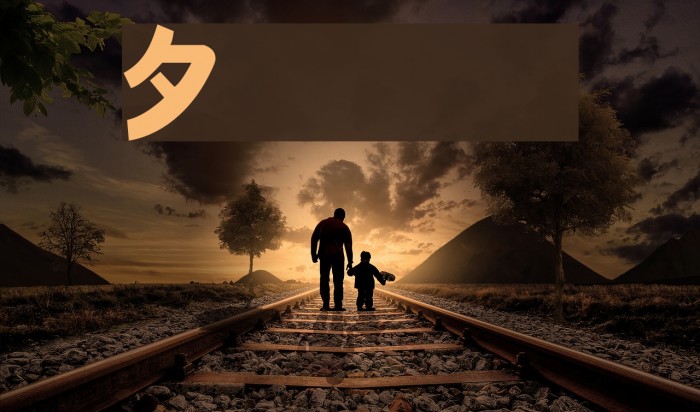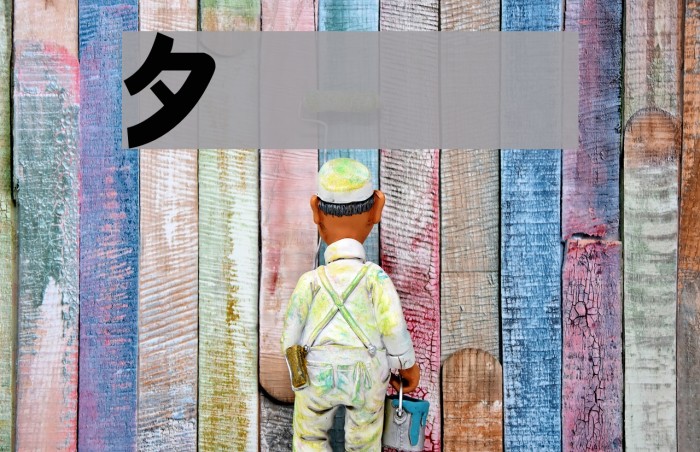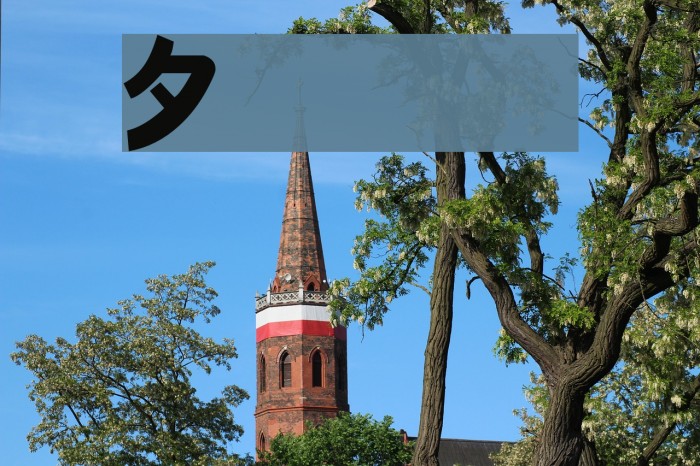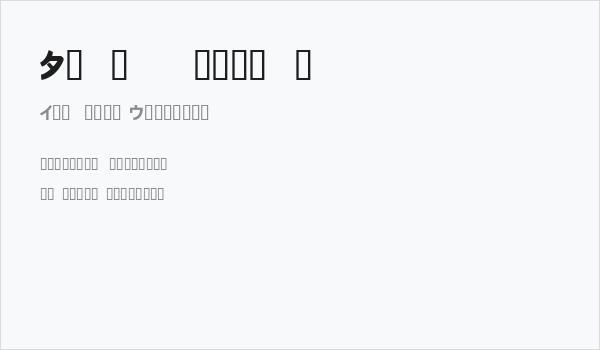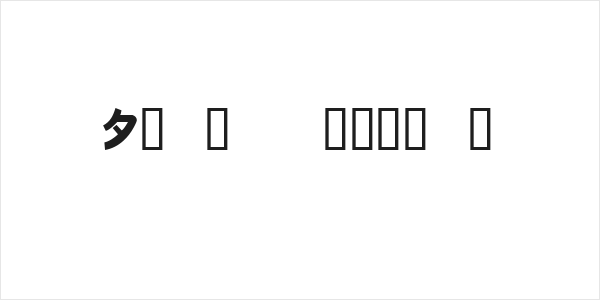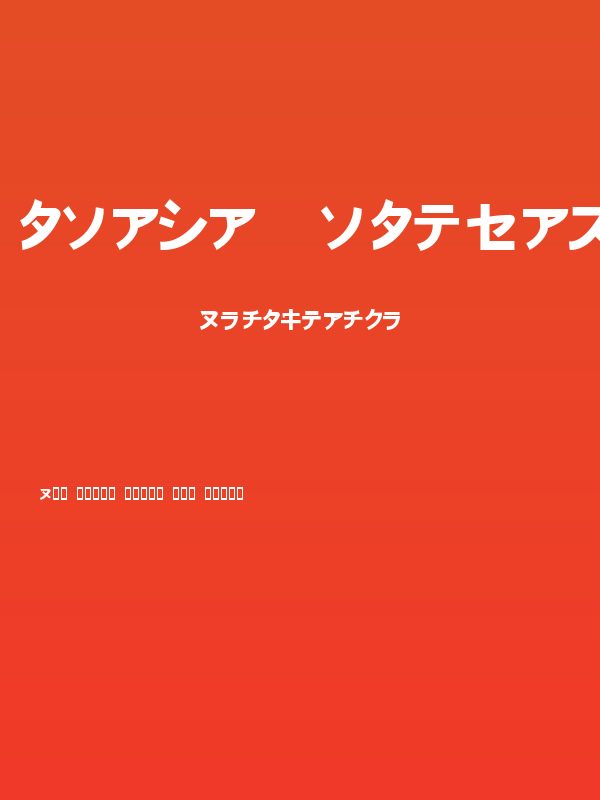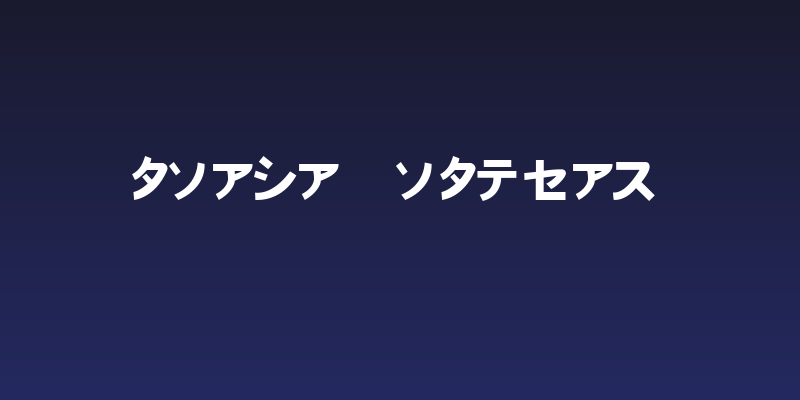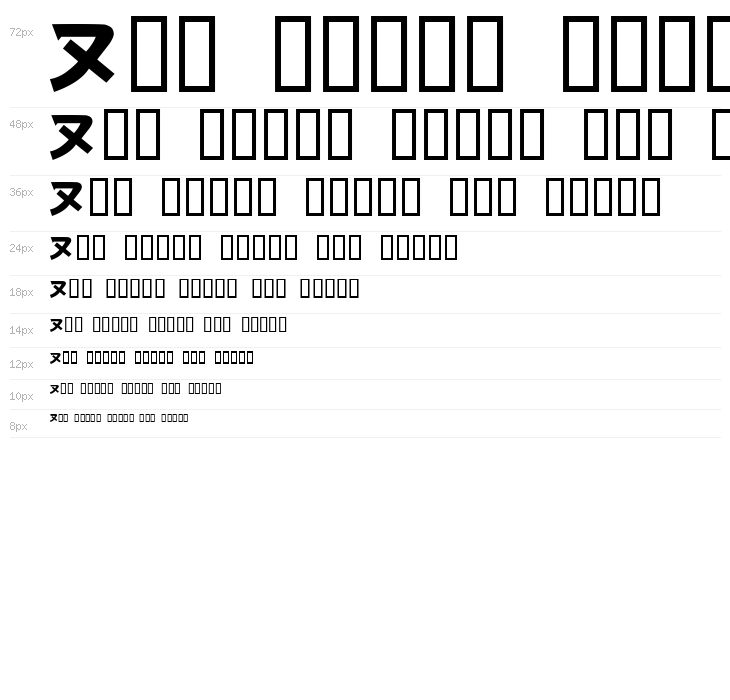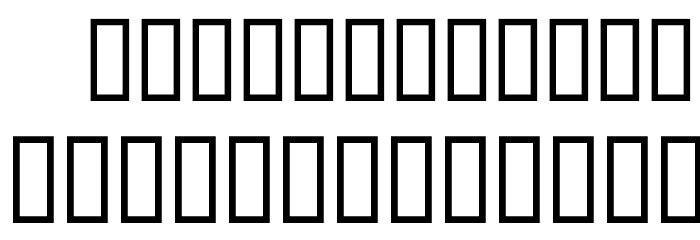
Onaka normal Font
Onaka normal Description
This font features a bold and modern design with clean, straight lines and a geometric structure. The characters are evenly spaced, providing a balanced and harmonious appearance. The font's style is consistent across both uppercase and lowercase letters, maintaining a uniform look. The boldness of the strokes gives it a strong presence, making it suitable for attention-grabbing headlines or titles. The overall design is minimalistic yet impactful, with a contemporary feel that can complement various design projects. Its simplicity and clarity make it easy to read, even at smaller sizes.